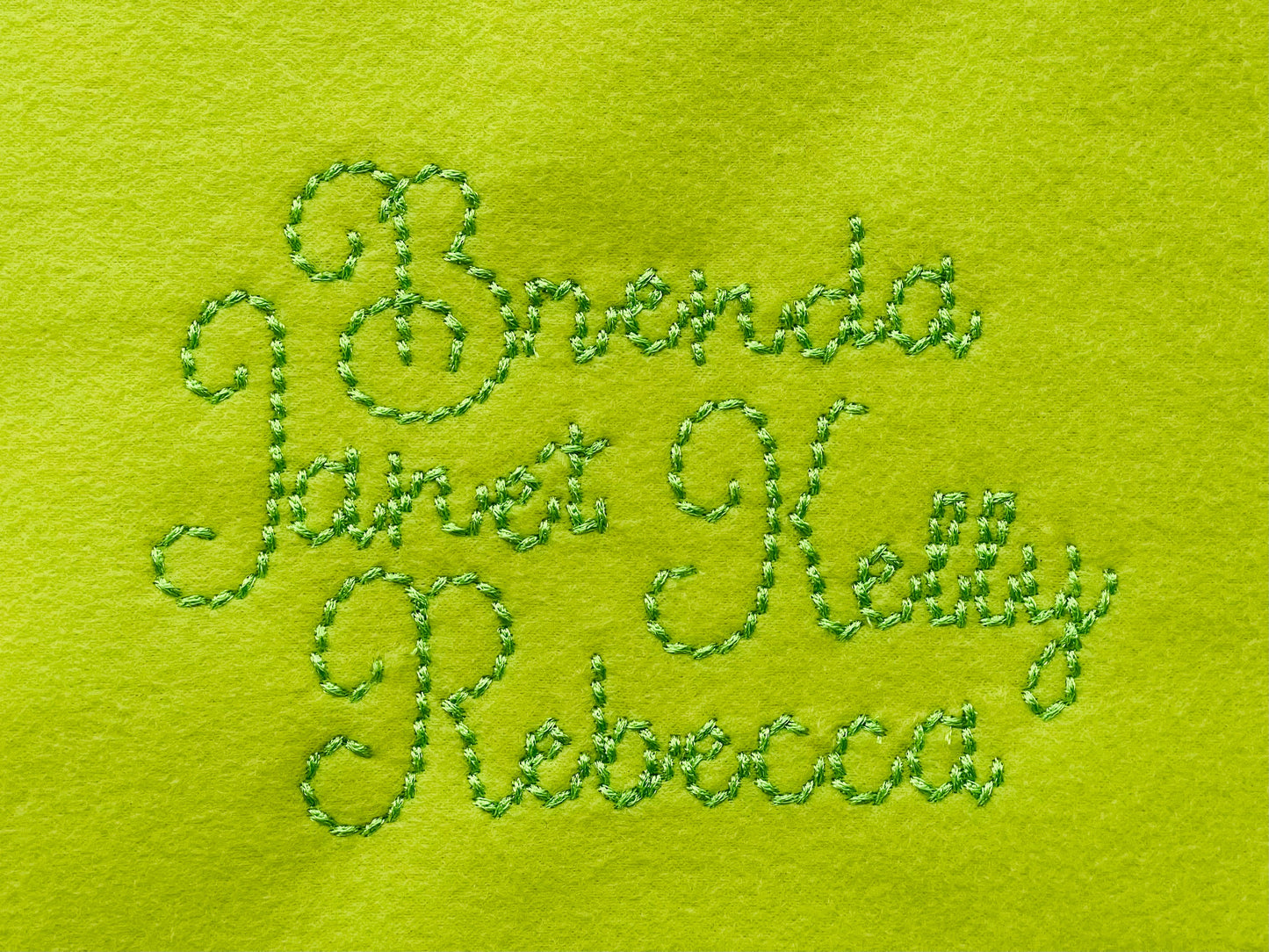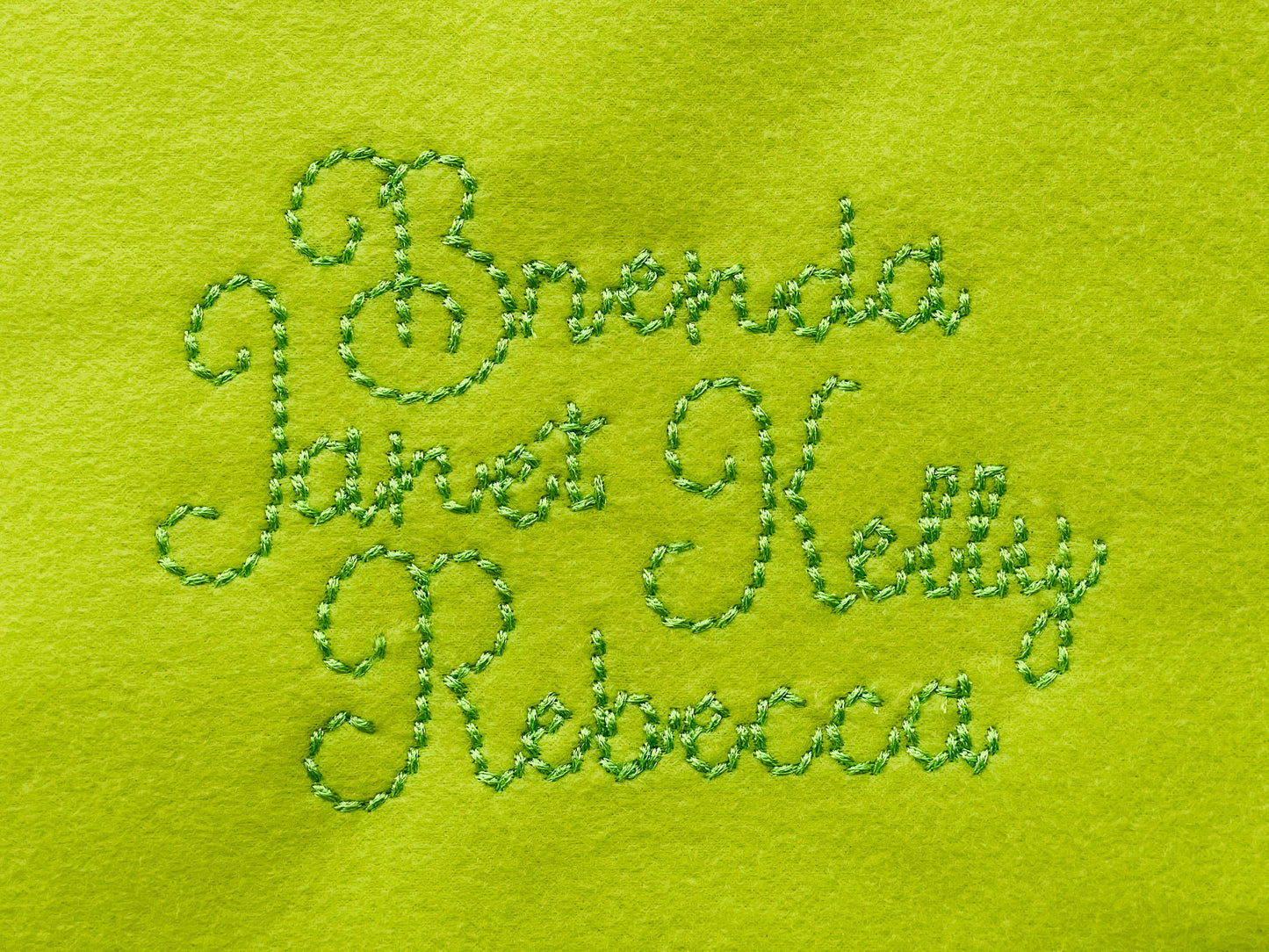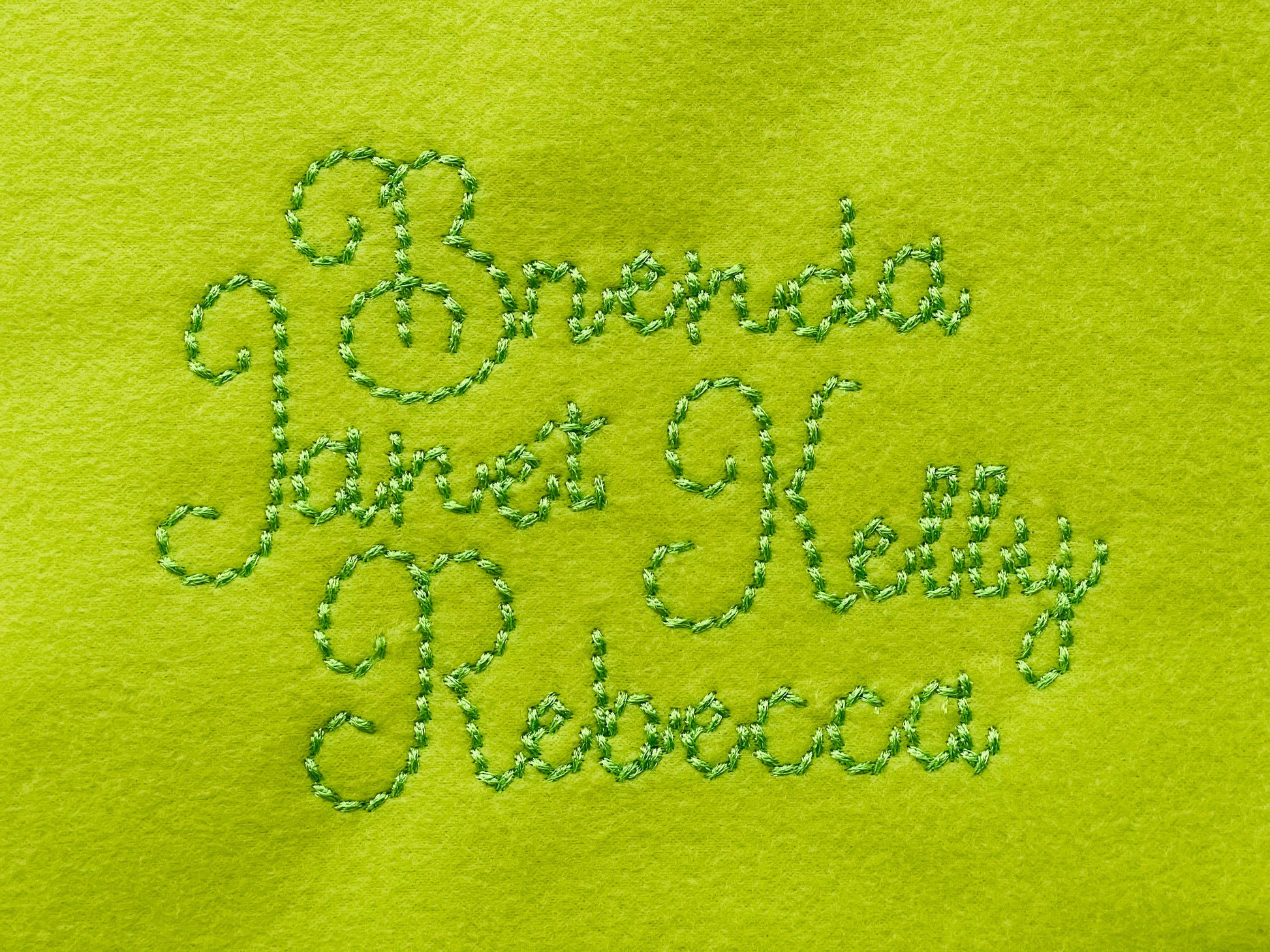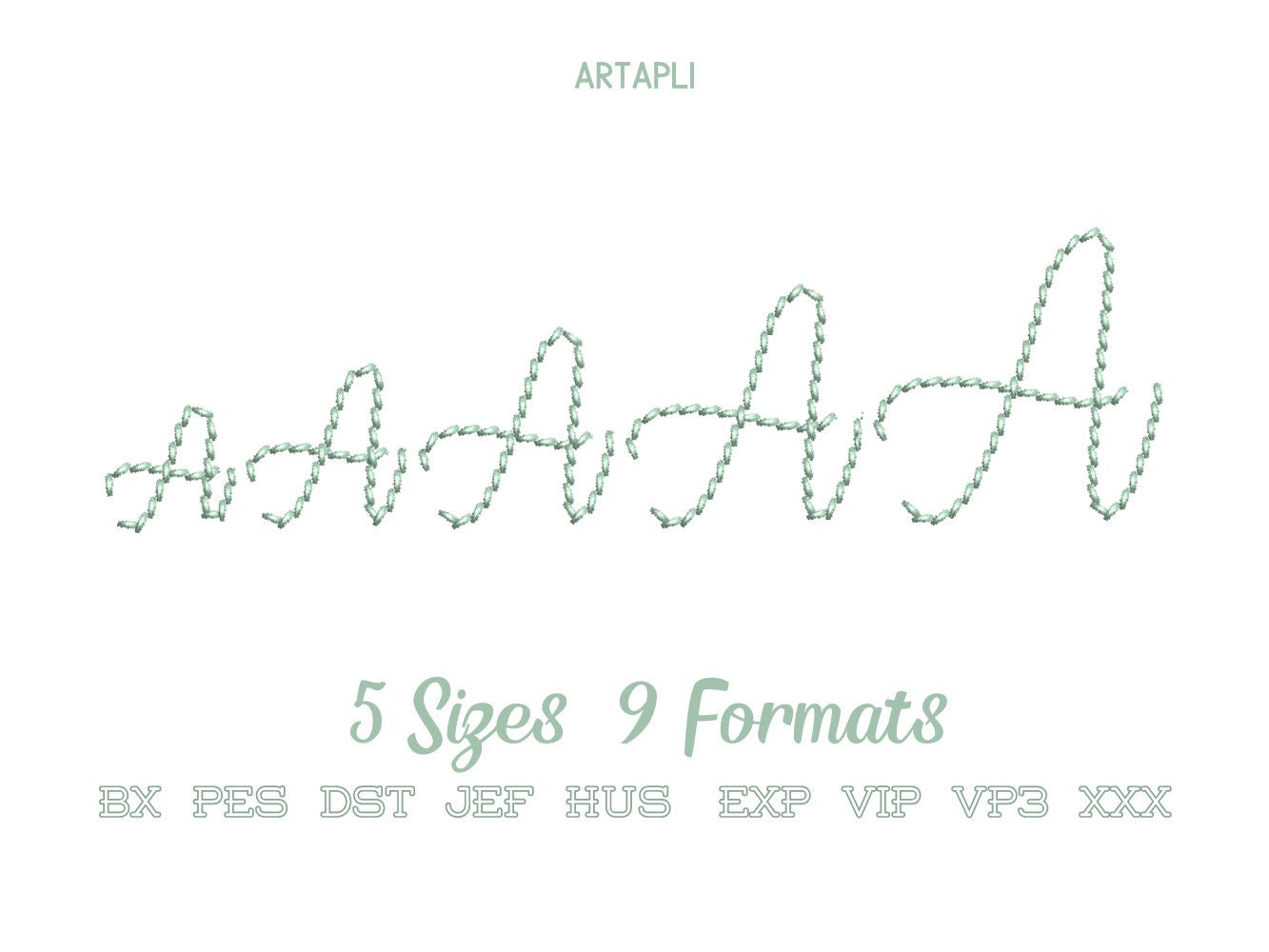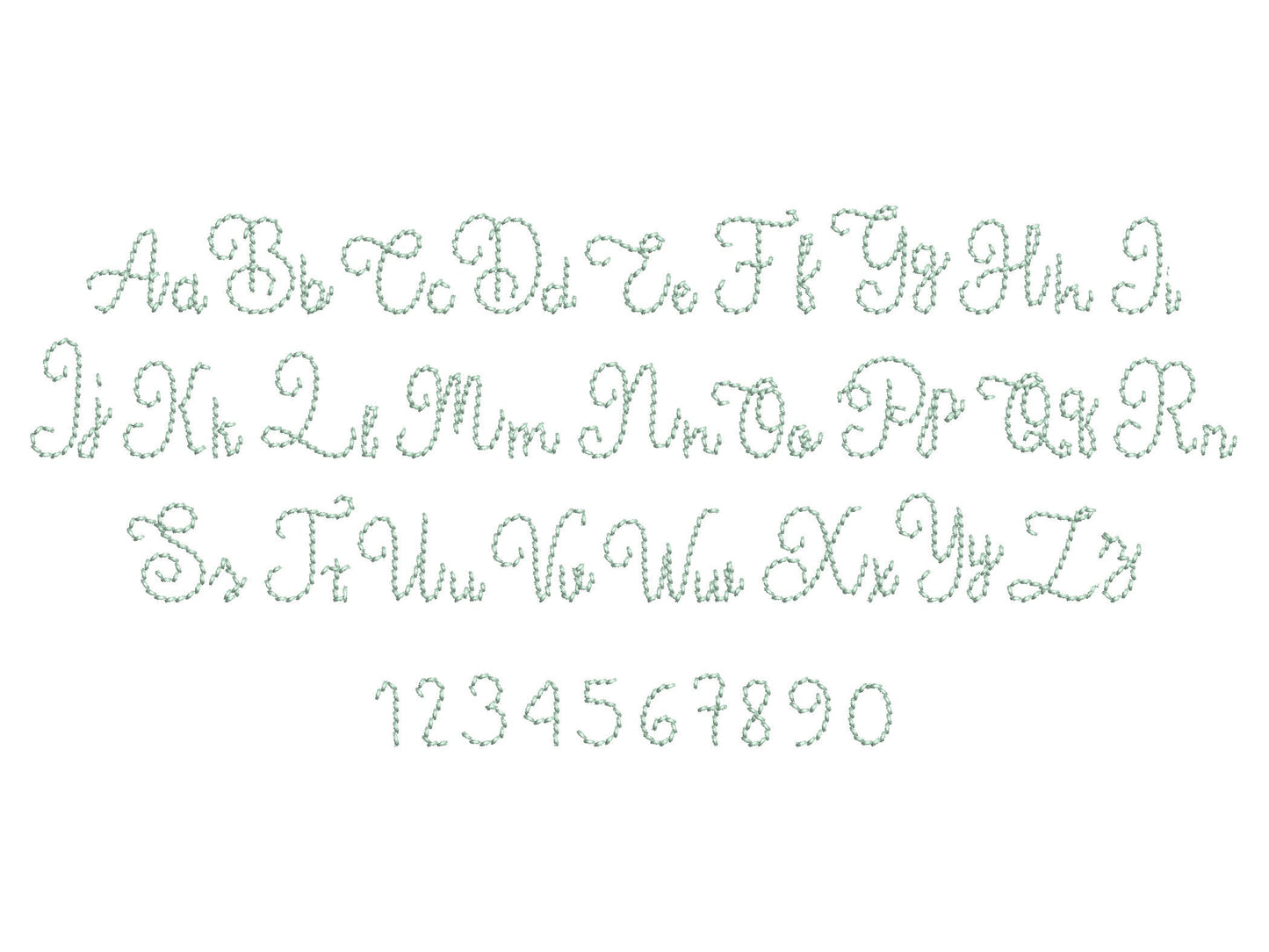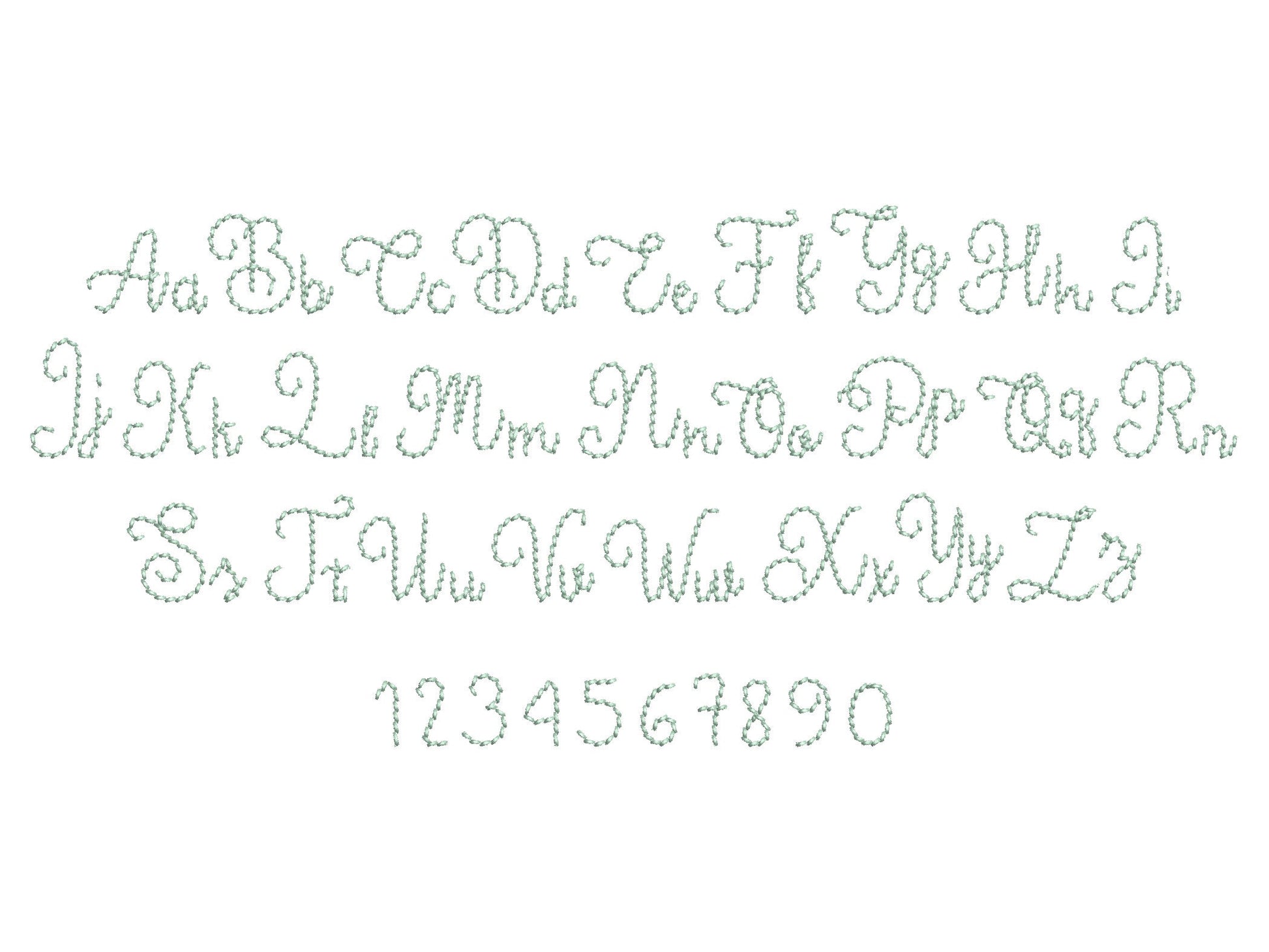
Hand Stitch Effect Font
The letters come in five mini sizes: 1, 1.3, 1.6, 2 and 2.4 inches. A simple back stitch gives each letter the look of hand embroidery. Includes uppercase and lowercase letters and numbers 0 to 9.
- Hand stitch effect script font, back stitch
- Uppercase and lowercase letters, numbers 0 to 9
- 5 sizes, 1 to 2.4 in